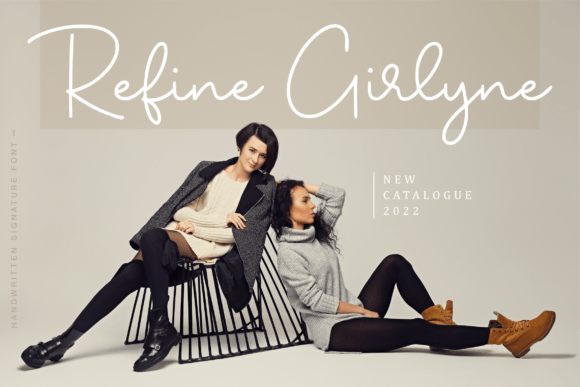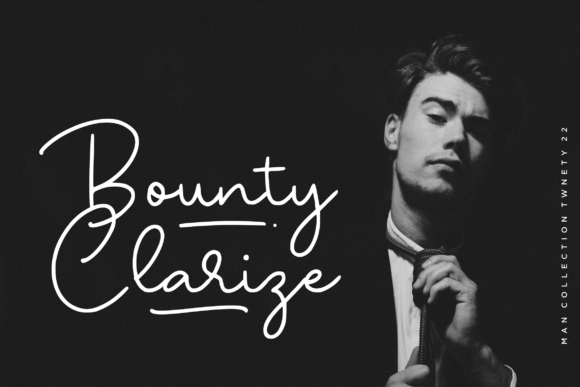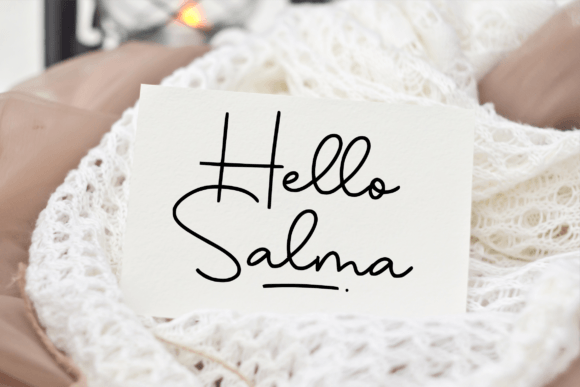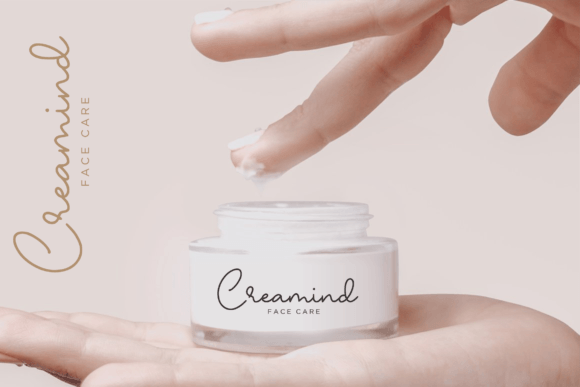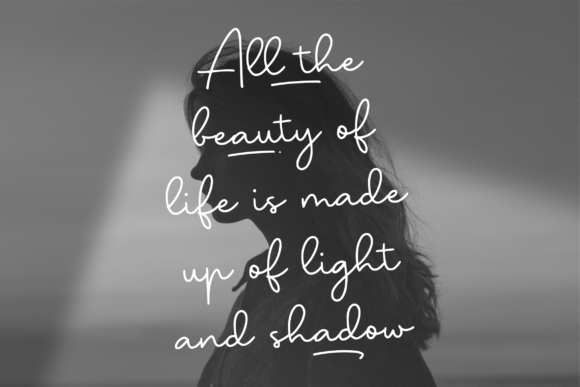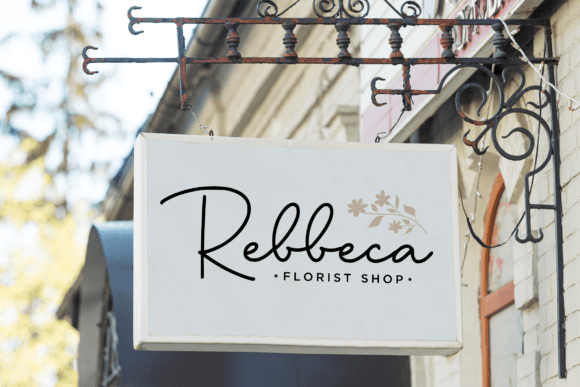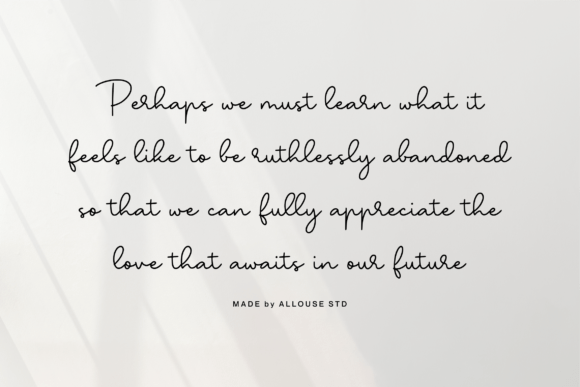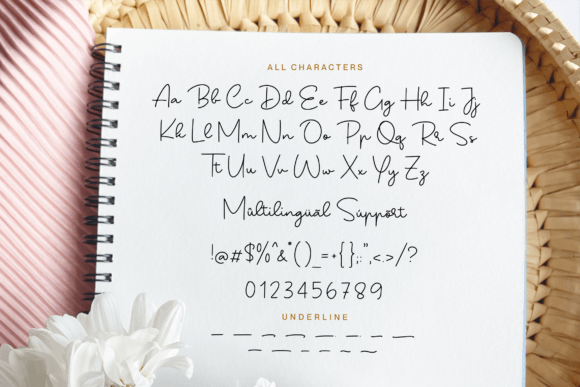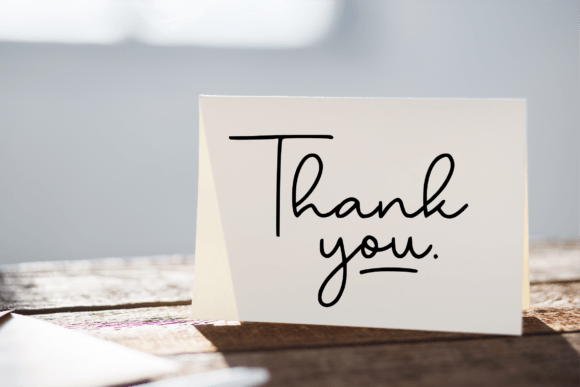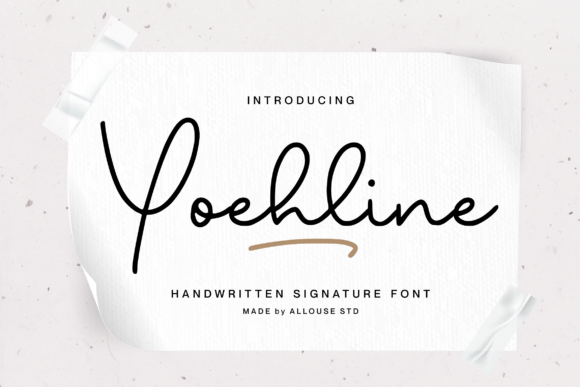
Yoehline Font
About Yoehline Font
Yoehline, a handwritten signature font, emerges as a distinctive and stylish choice for a variety of design applications. Tailored for versatility, this font is an ideal companion for product packaging, branding projects, magazines, social media posts, weddings, and any design endeavor where the expressive beauty of a signature-style font is desired.
The signature quality of Yoehline brings a touch of authenticity and personalization to each project it graces. Its elegant strokes and fluid lines create a sense of sophistication, making it particularly well-suited for branding and packaging where a distinctive and memorable touch is crucial. The font’s ability to convey a sense of individuality adds a unique flair to social media graphics, creating eye-catching posts that stand out in the digital landscape.
Yoehline’s charm extends to wedding-related projects, where its handwritten signature style adds a romantic and personalized touch to invitations, place cards, and other stationery. The font’s adaptability makes it suitable for a broad spectrum of design contexts, providing a consistent and stylish look across diverse applications.
Whether overlaying text on images or standing alone on a clean background, Yoehline remains legible and visually appealing. Its ability to express words above various backgrounds ensures that it maintains its impact, making it a versatile choice for designers seeking a signature font that seamlessly integrates with their creative vision.
In summary, Yoehline is not just a font; it’s a statement of elegance and personalization. Its handwritten signature style is a perfect fit for those looking to infuse their projects with a touch of sophistication and individuality. Whether it’s product packaging, branding, social media, or weddings, Yoehline stands out as a versatile and stylish choice that elevates the visual impact of any design project.